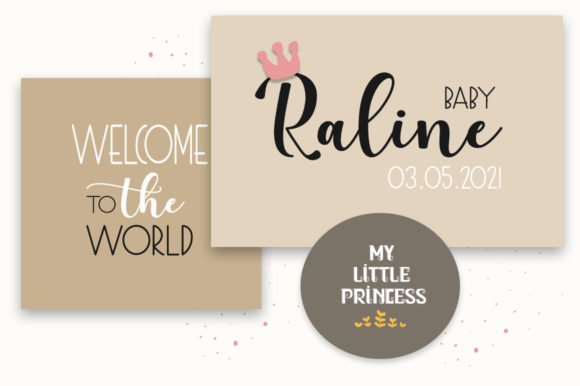
Sweet Heart Font
db-ku.com - Script & Handwritten -- Sweet Heart is a cute and playful font family (Script, Sans serif, Display and Dingbats). Incredibly versatile, this font fits a wide pool of designs, elevating them to the highest levels.